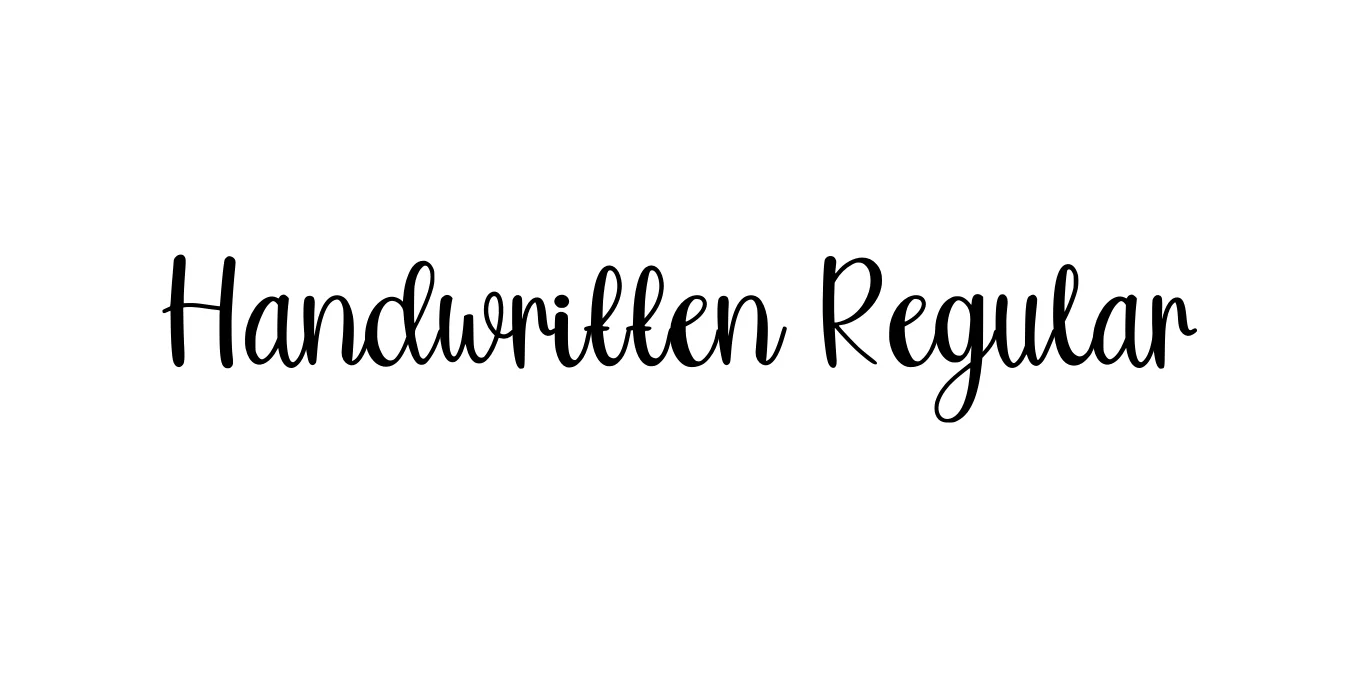
Handwritten Regular
Designed by Zulhadi
Handwritten Regular was meticulously crafted to bridge the gap between digital typography and authentic manual penmanship. The design focus was to maintain an organic flow with consistent stroke weights, ensuring that the typeface remains legible even at smaller point sizes. It features subtle imperfections that mimic the natural variations of ink on paper, making it a favorite for designers seeking a human element in their digital compositions.
Over the years, this font has become a staple in the DIY crafting community and digital scrapbooking. Its versatile nature allows it to transition seamlessly from casual greeting cards to sophisticated lifestyle branding. The character set typically includes standard ligatures and international character support, providing a comprehensive toolkit for creative projects that require a personal, hand-touched finish.
Handwritten Regular Best Uses
Creating authentic and engaging Instagram stories or Pinterest graphics.
Adding a personalized, hand-written feel to invitations and place cards.
Developing signature-style logos for lifestyle and fashion brands.
Enhancing the aesthetic of digital journals and PDF planners.